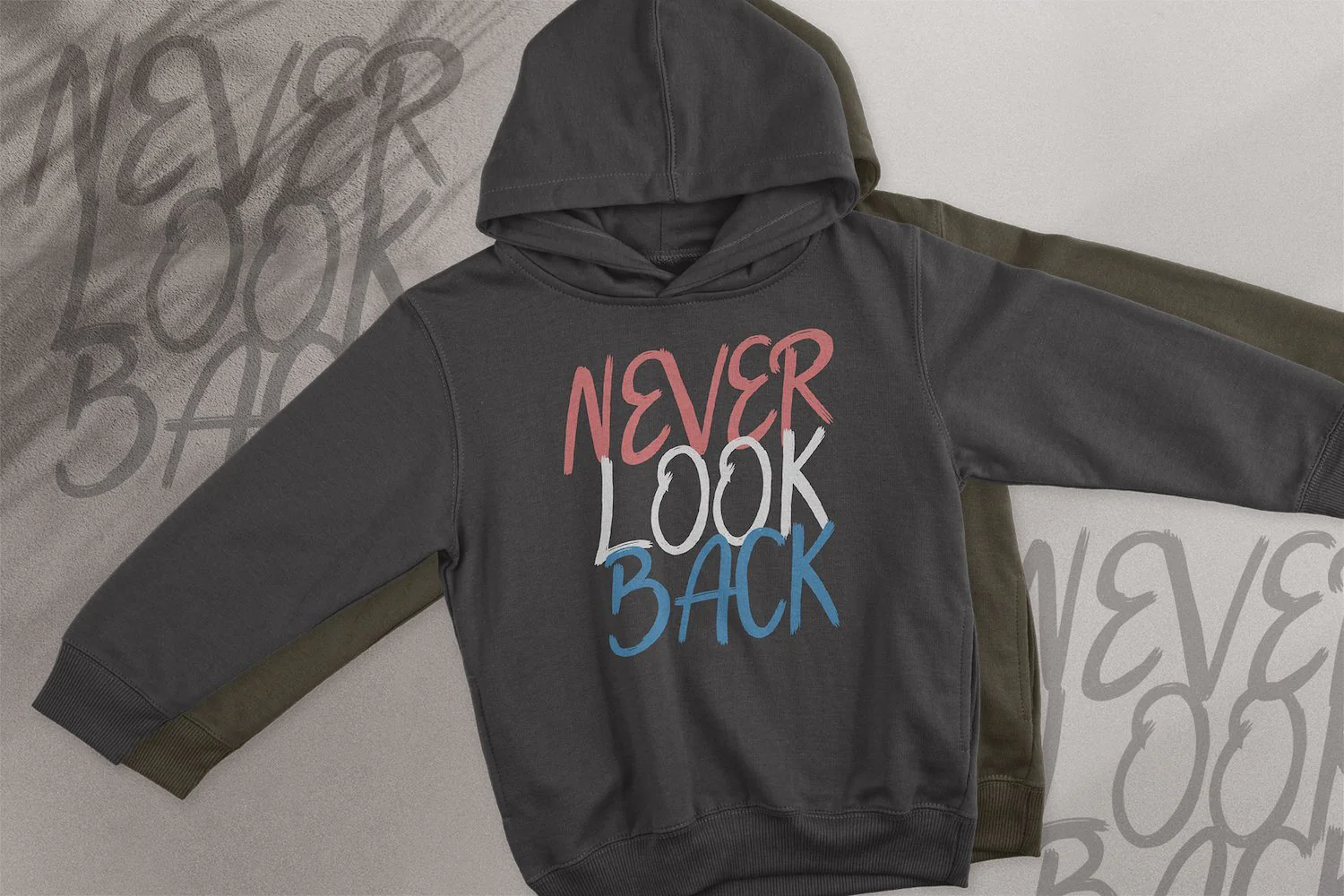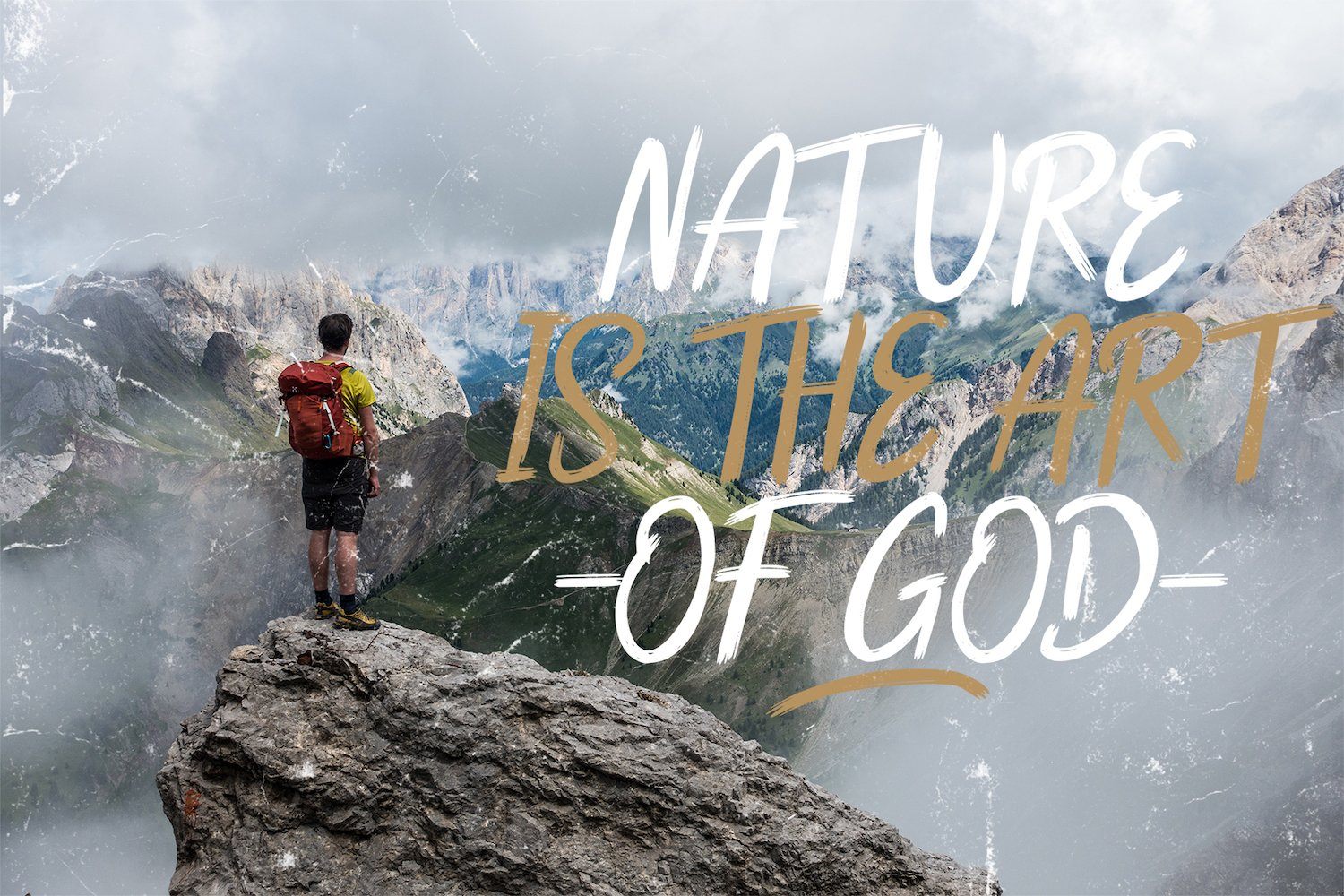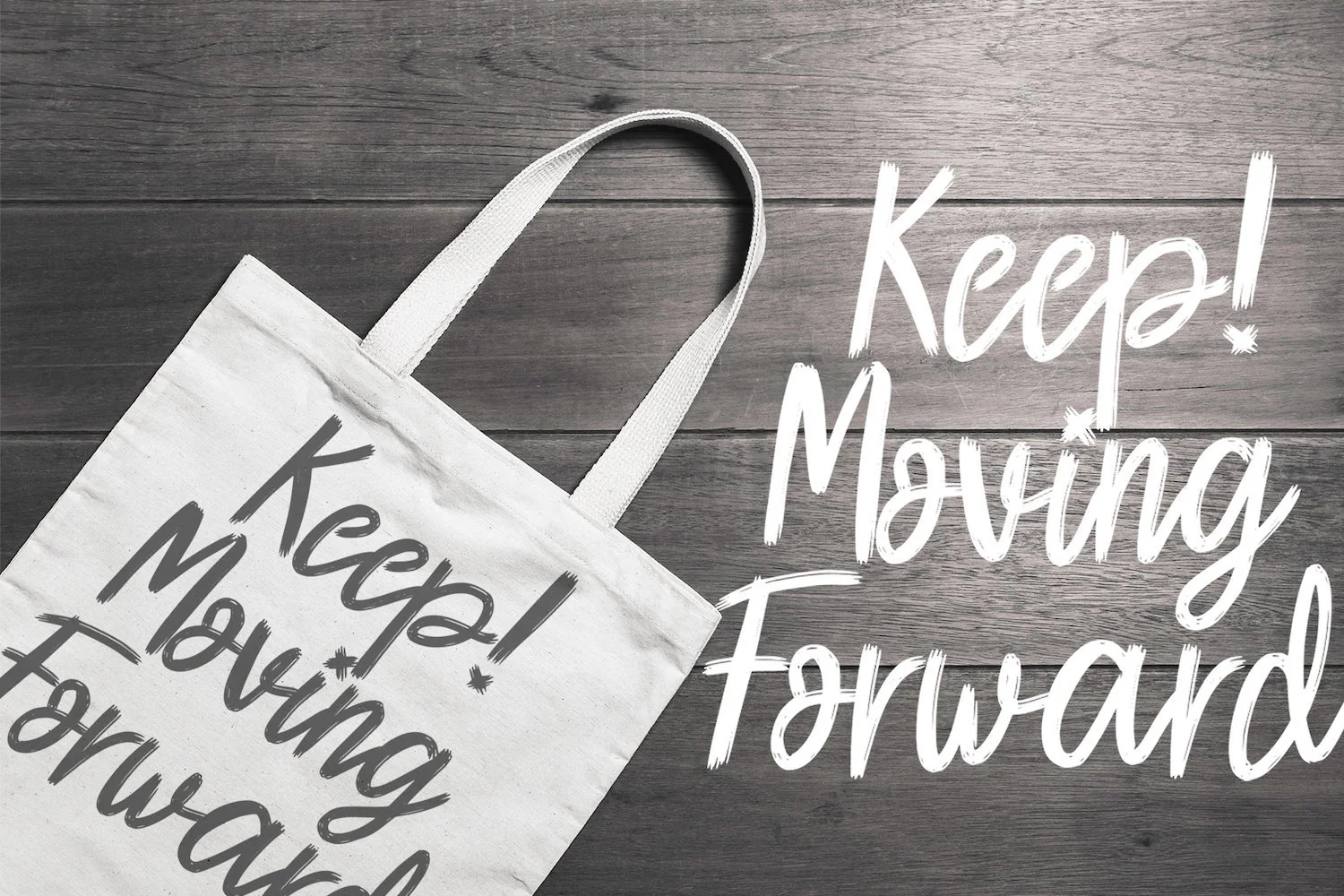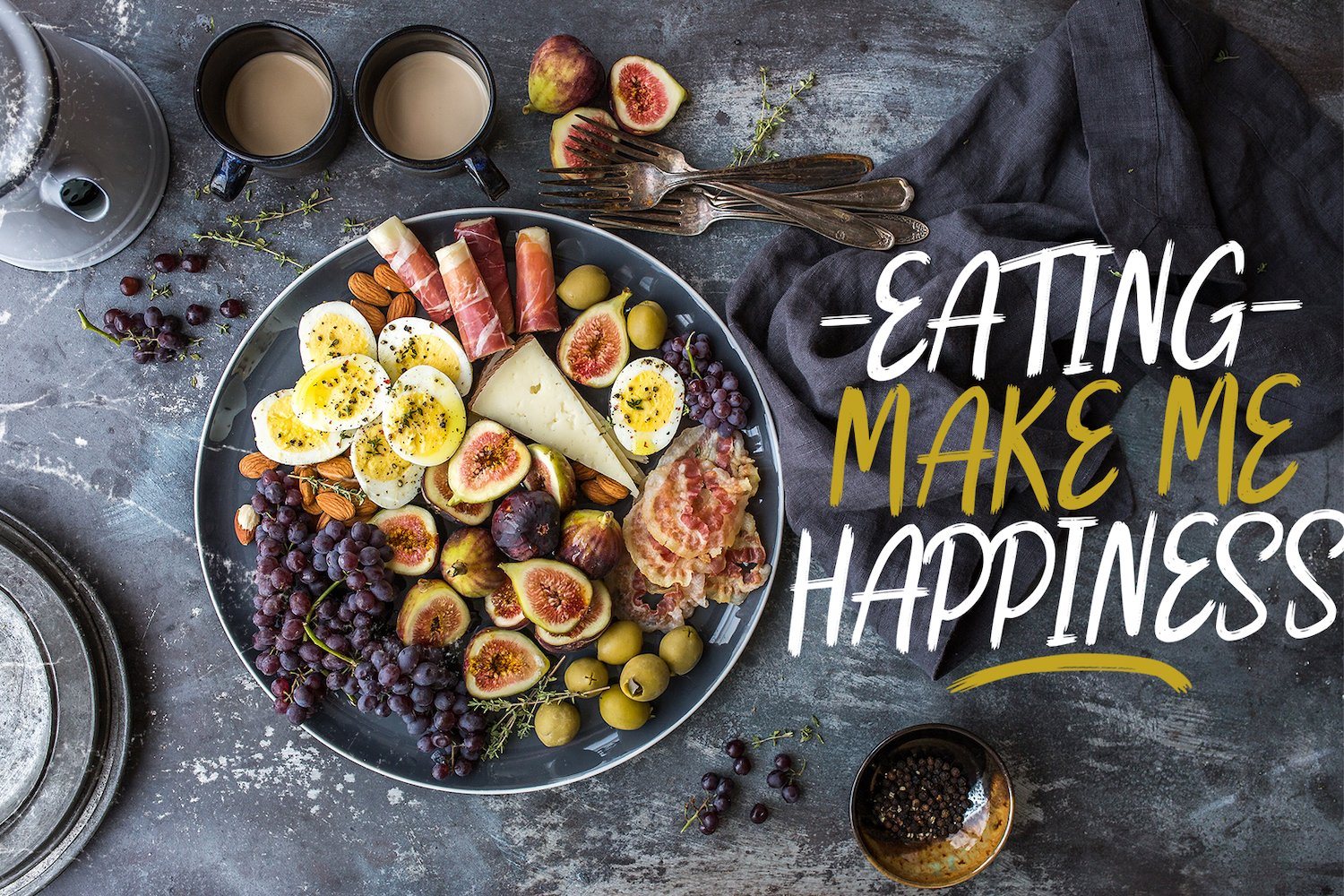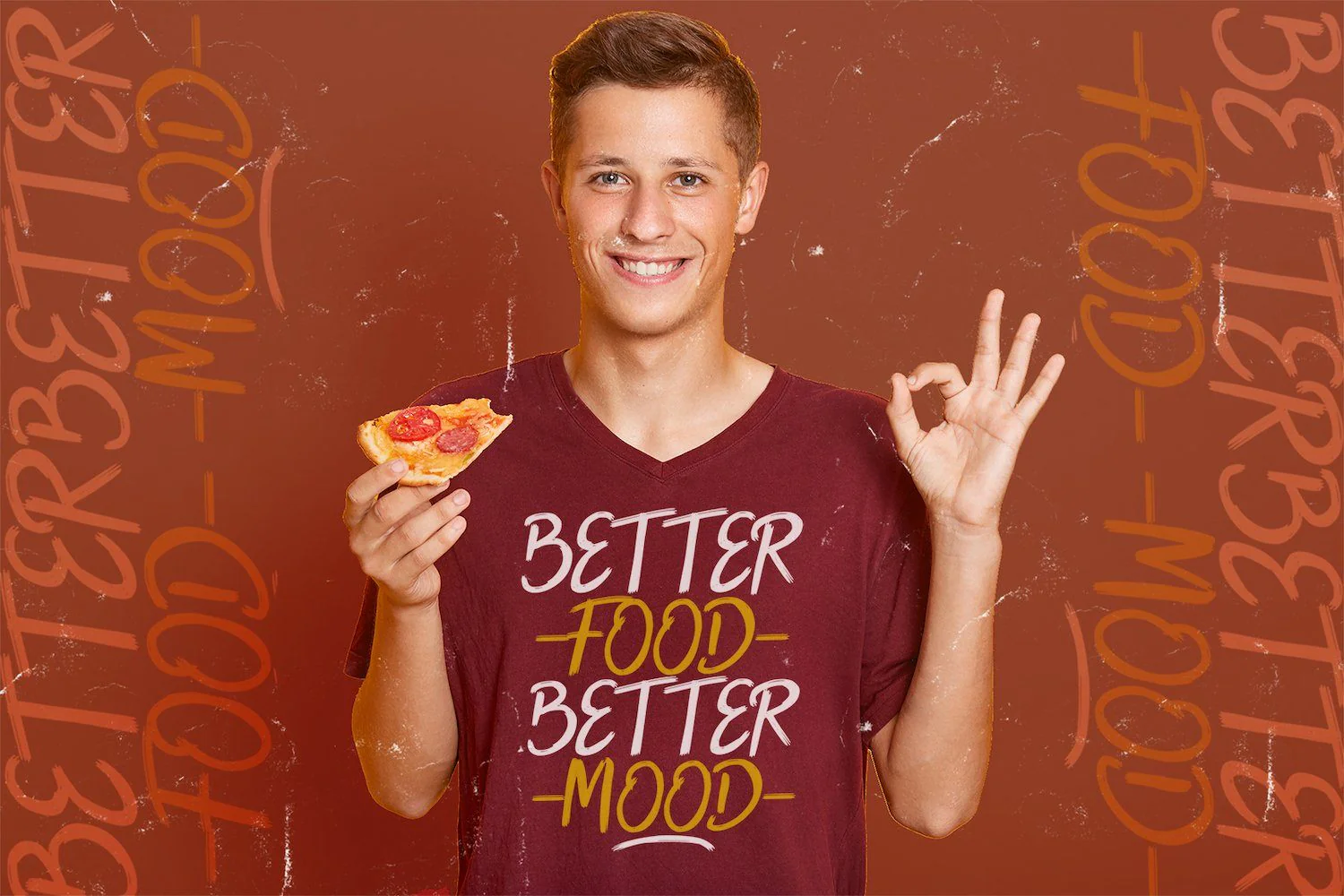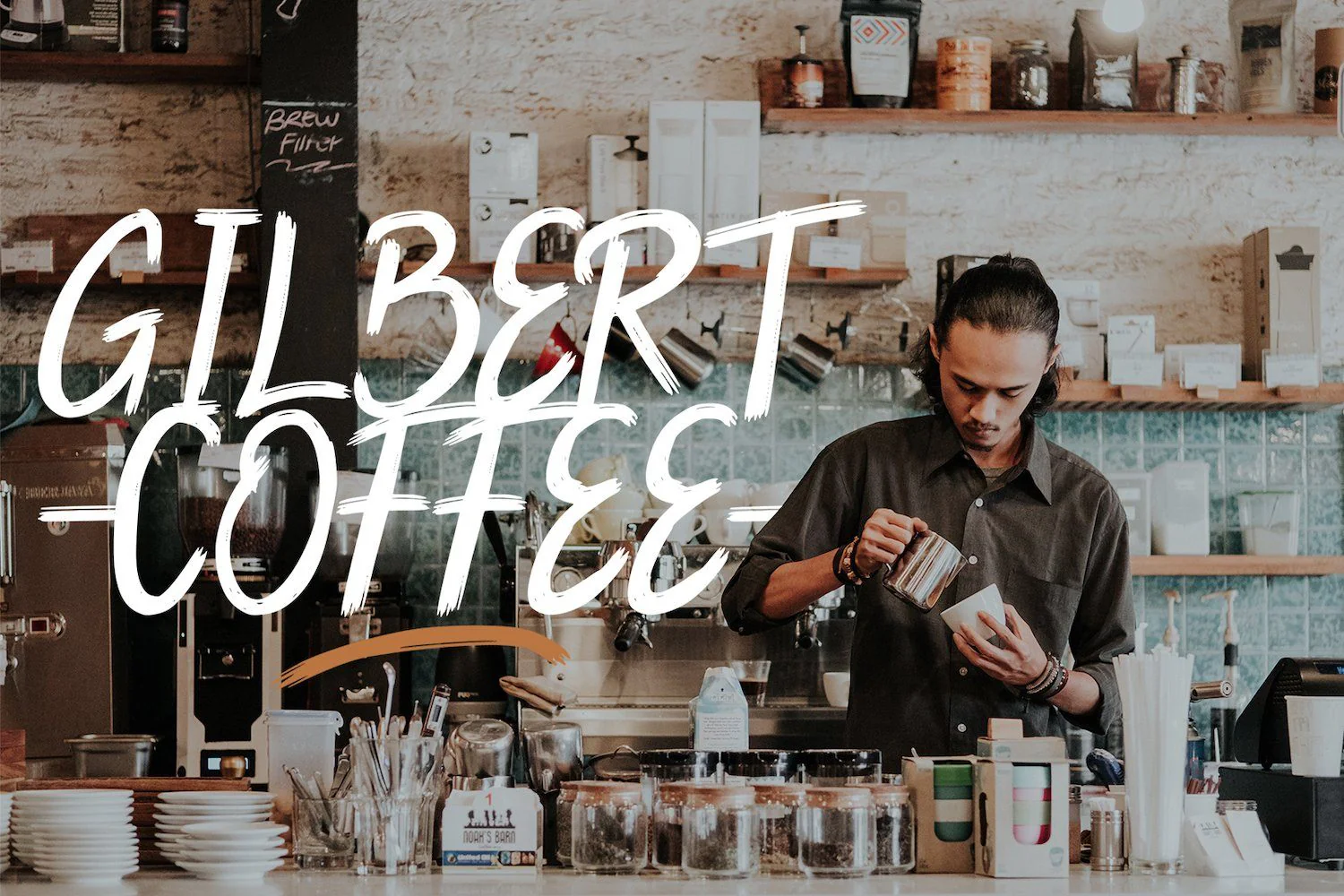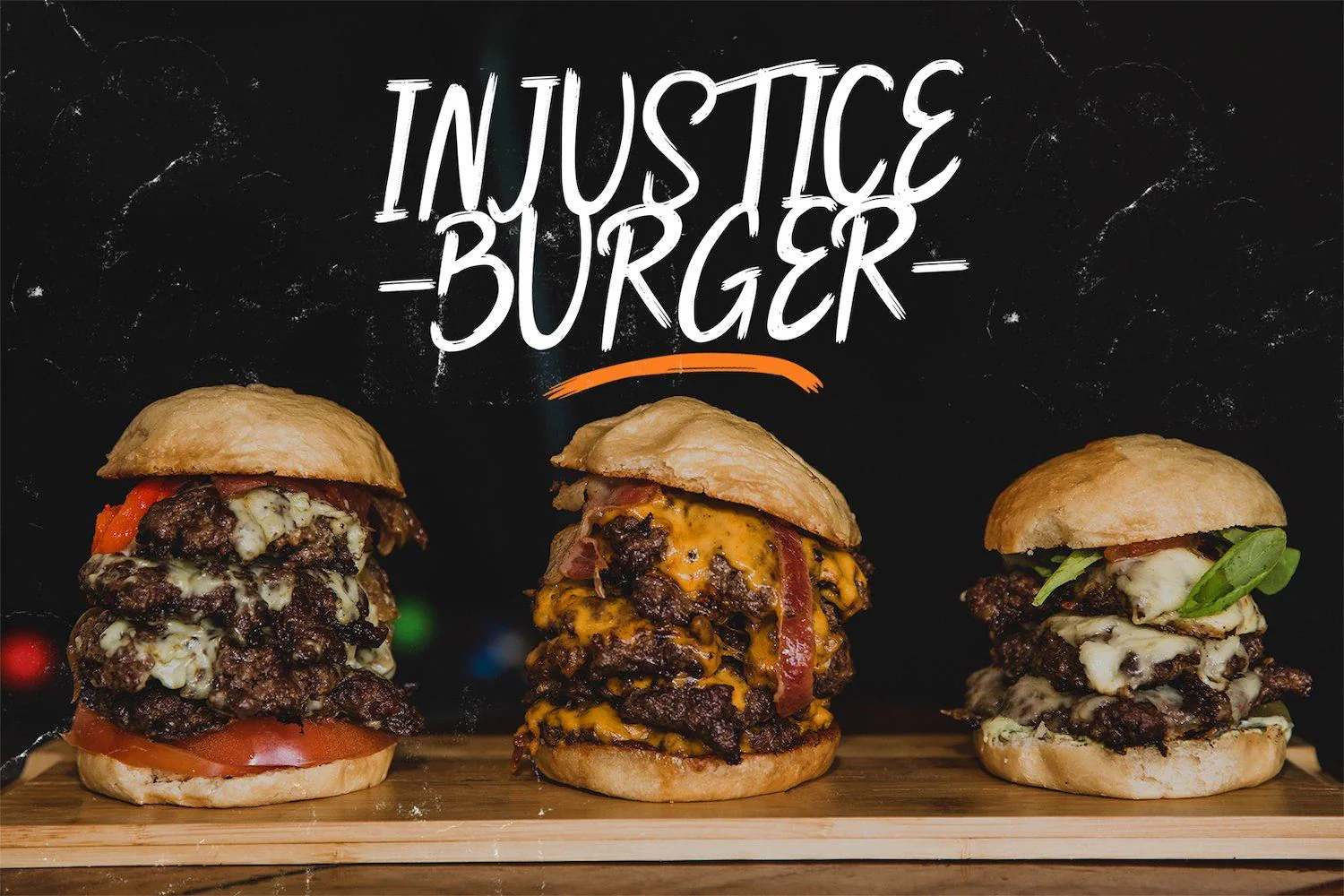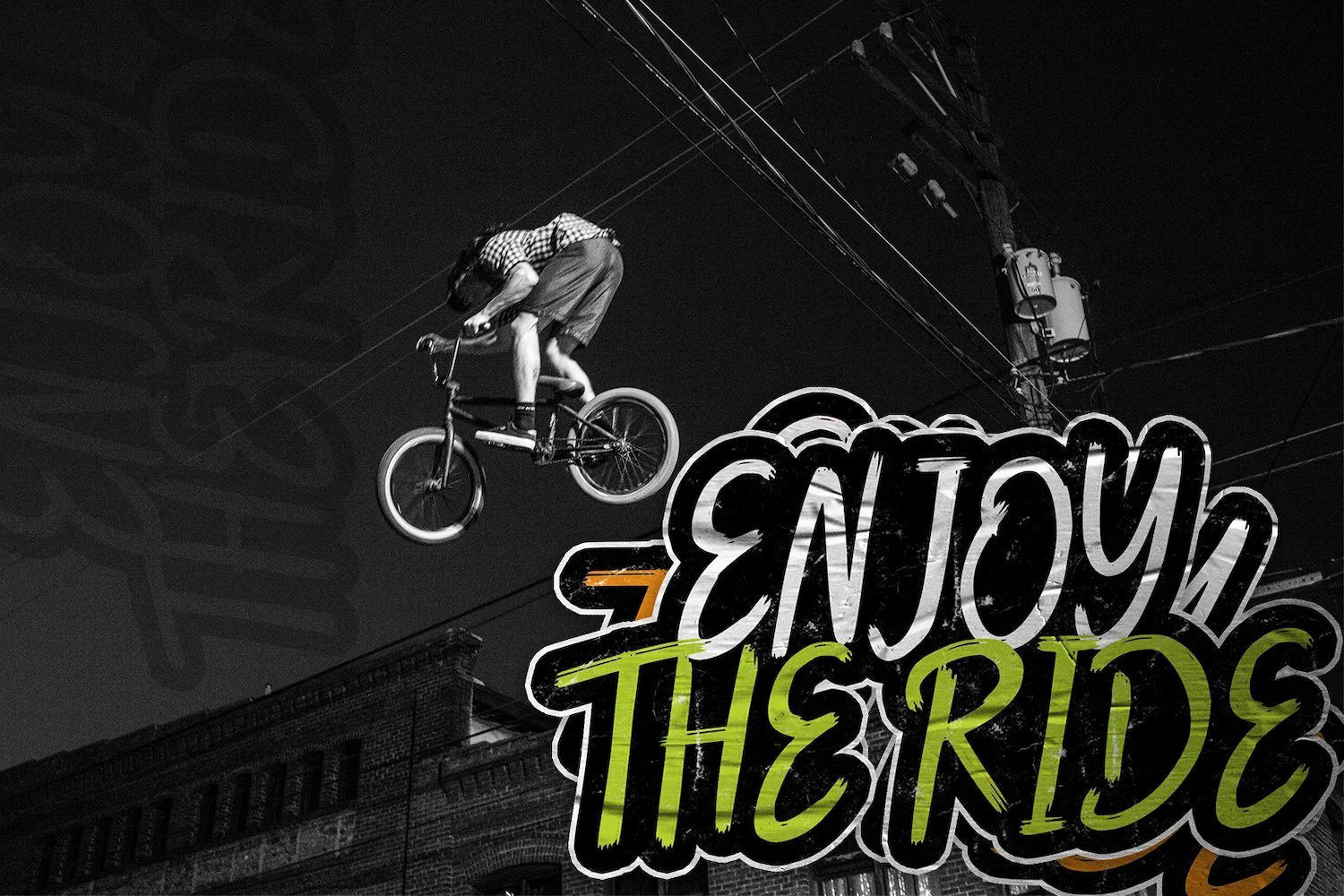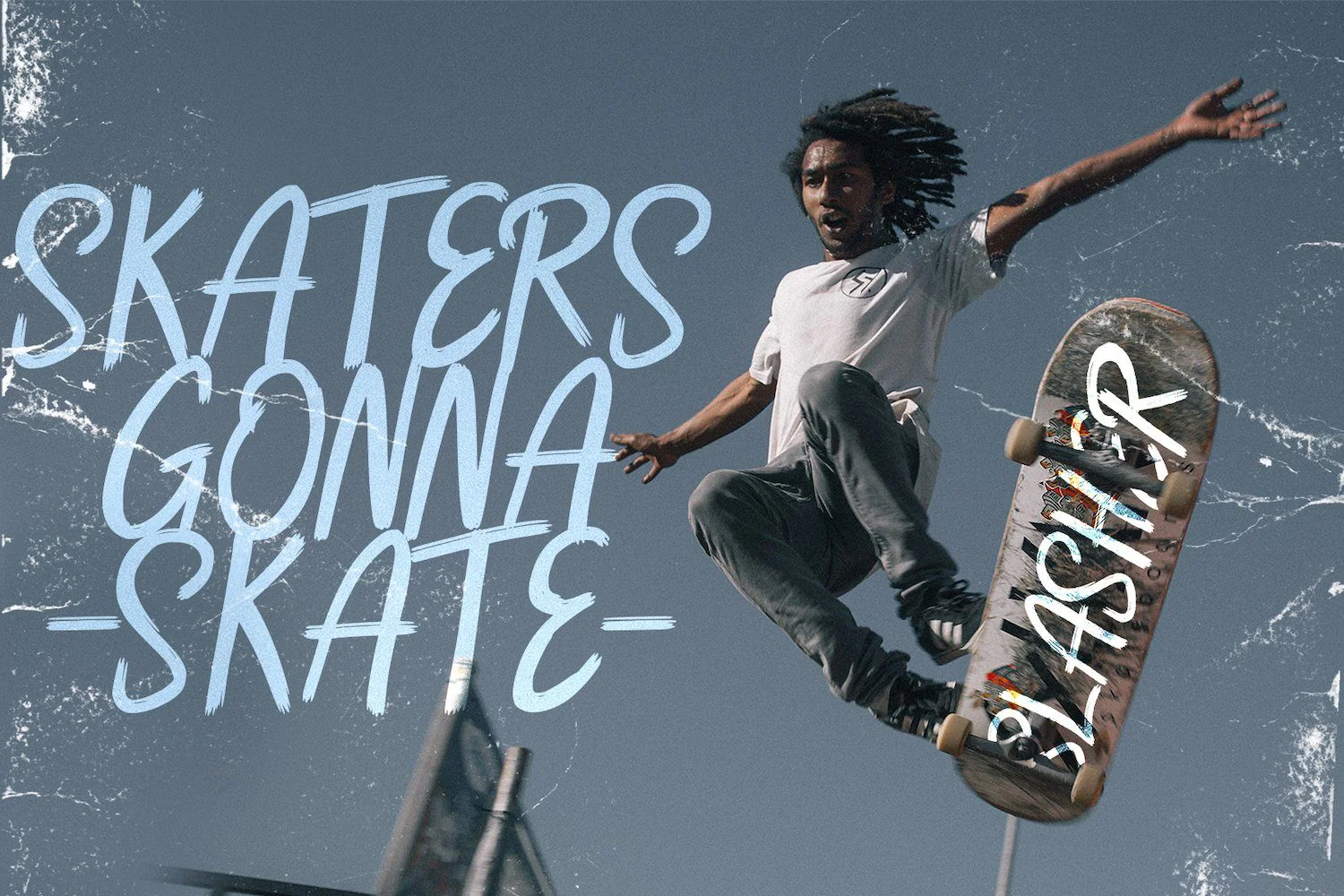
Reinstay - Brush Textured Script Font
Introducing Reinstay - Brush Textured Script Font
Reinstay is a script font with textured brush style. The Reinstay font made with digital brush pen strokes that making this font look authentic. This font is perfect for fashion brand, wedding invitation, business card, logo brand, signature, and then calligraphy.
This Font contains Stylish, Creative, and has a Unique Concept.
- Swash
Introducing Reinstay - Brush Textured Script Font
Reinstay is a script font with textured brush style. The Reinstay font made with digital brush pen strokes that making this font look authentic. This font is perfect for fashion brand, wedding invitation, business card, logo brand, signature, and then calligraphy.
This Font contains Stylish, Creative, and has a Unique Concept.
- Swash